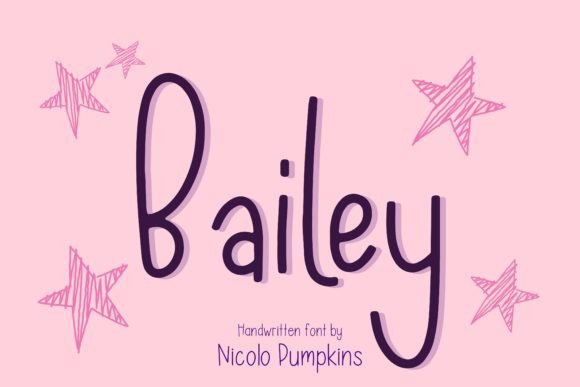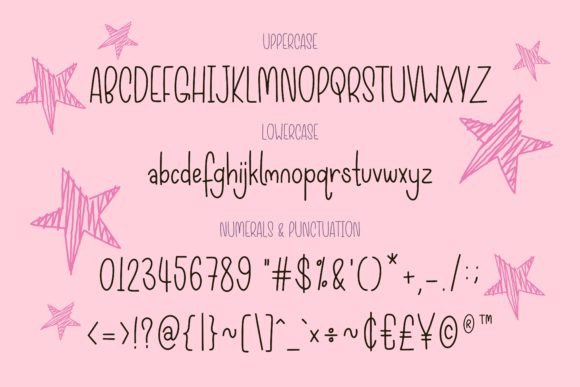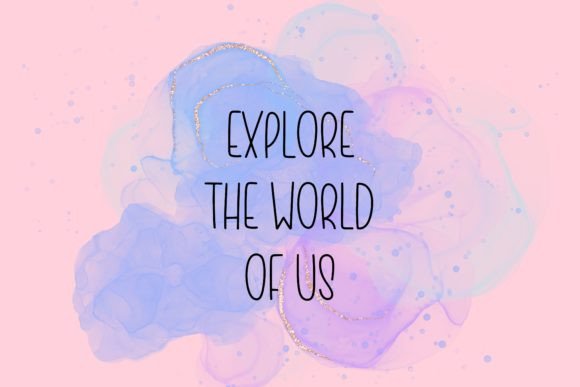
About Bailey Font
Bailey is a thin, cute, and friendly handwritten farmhouse-style font designed to bring a charming touch to your creative projects. Whether you’re working on quotes, logos, or any lettering product with a farmhouse aesthetic, Bailey is crafted to make your creative ideas stand out with a touch of style. The PUA encoding feature ensures easy access to all the glyphs and swashes, providing you with the flexibility to enhance your designs.
The thin and friendly qualities of Bailey are evident in its carefully crafted letterforms. The font exudes a sense of simplicity and approachability, making it an ideal choice for projects that require a cute and friendly farmhouse aesthetic.
Whether you’re creating quotes, rustic logos, or any lettering product with a farmhouse style, Bailey stands out with its distinctive charm. The handwritten style adds a personal and whimsical touch, making your creative ideas more memorable and engaging.
Incorporate Bailey into your design projects and experience how it brings a cute and friendly farmhouse atmosphere to your creations. From heartwarming quotes to rustic logos, this font provides a versatile and charming foundation for a variety of applications. Let Bailey be the font that makes your creative ideas stand out with a touch of farmhouse-inspired cuteness!